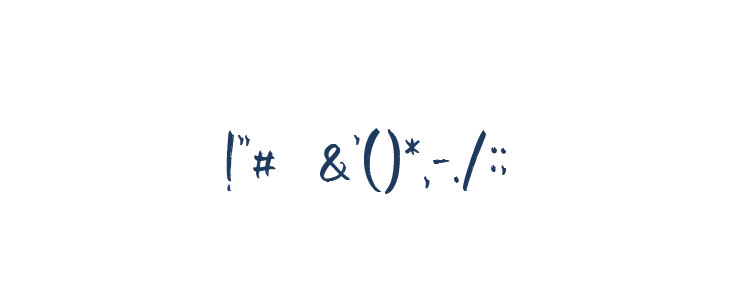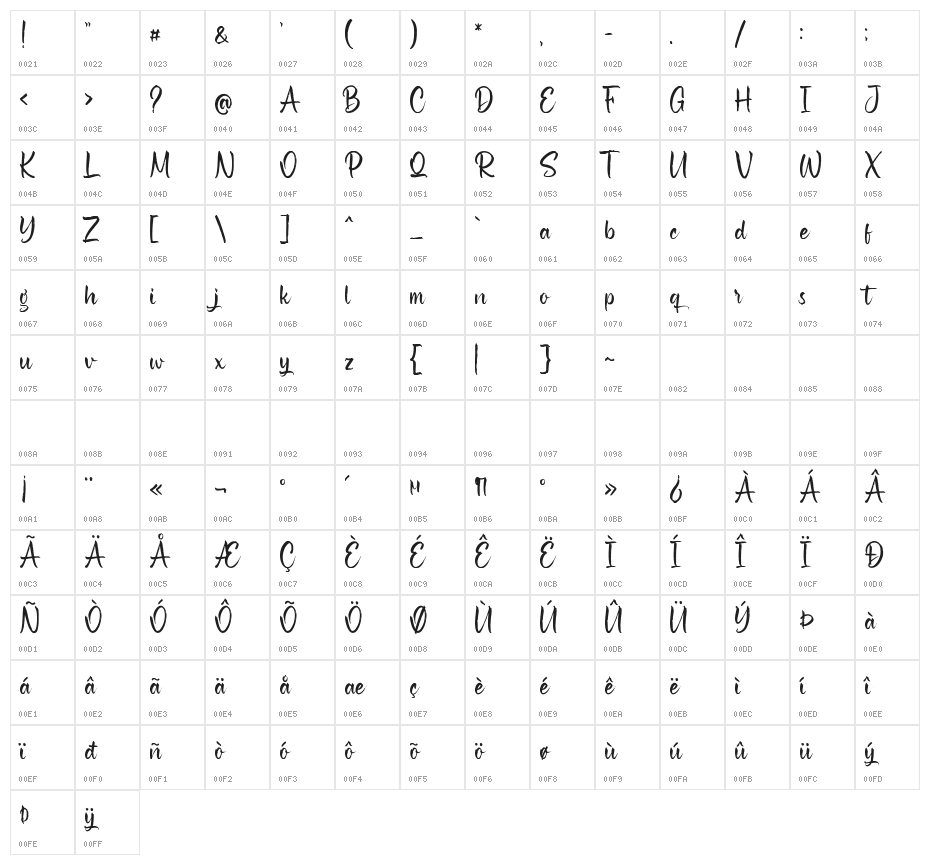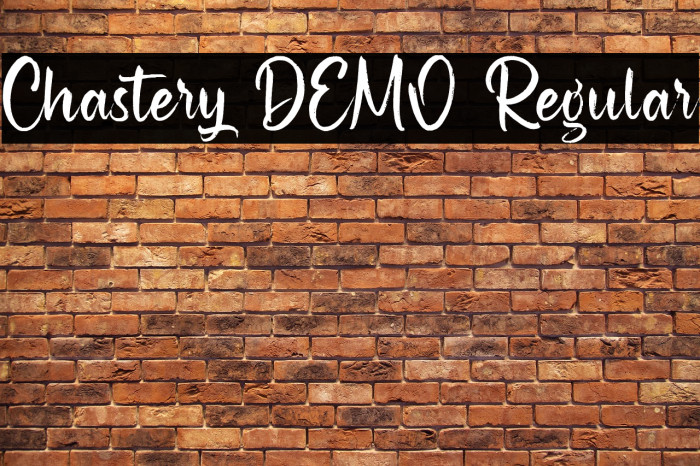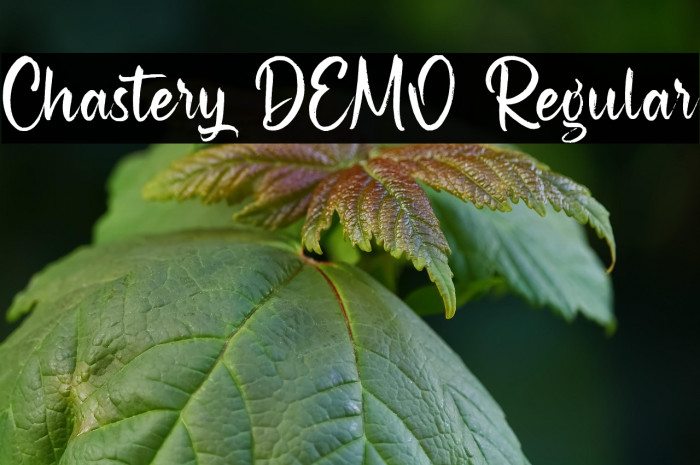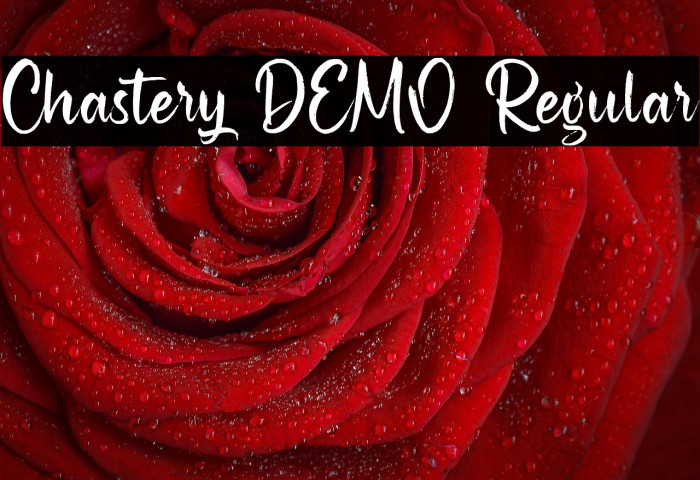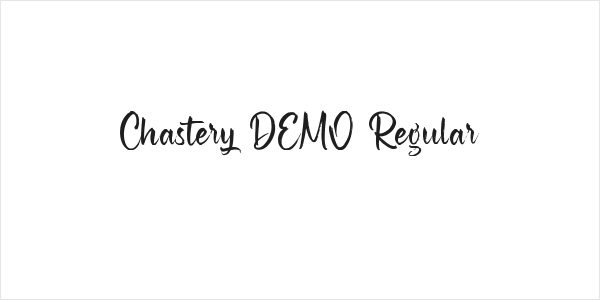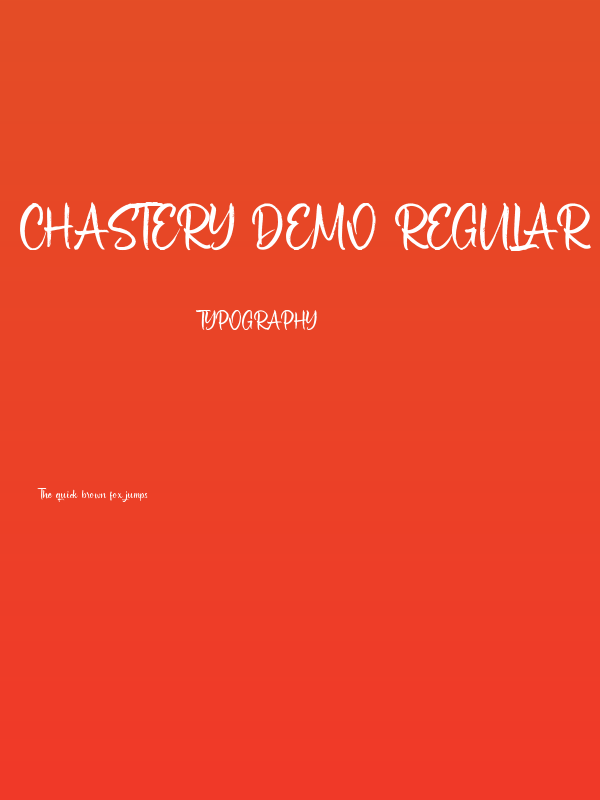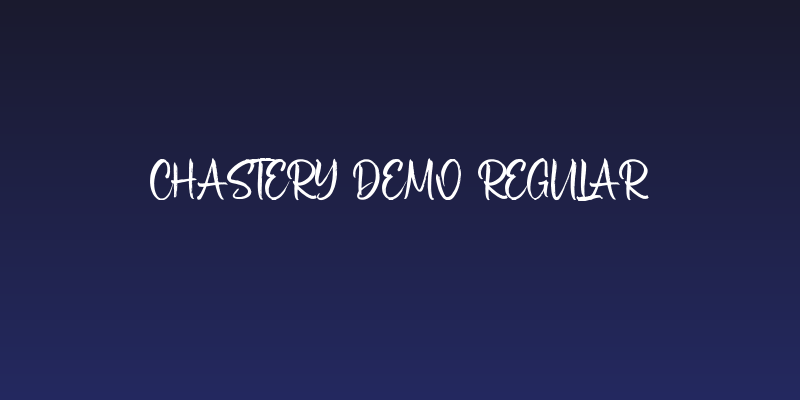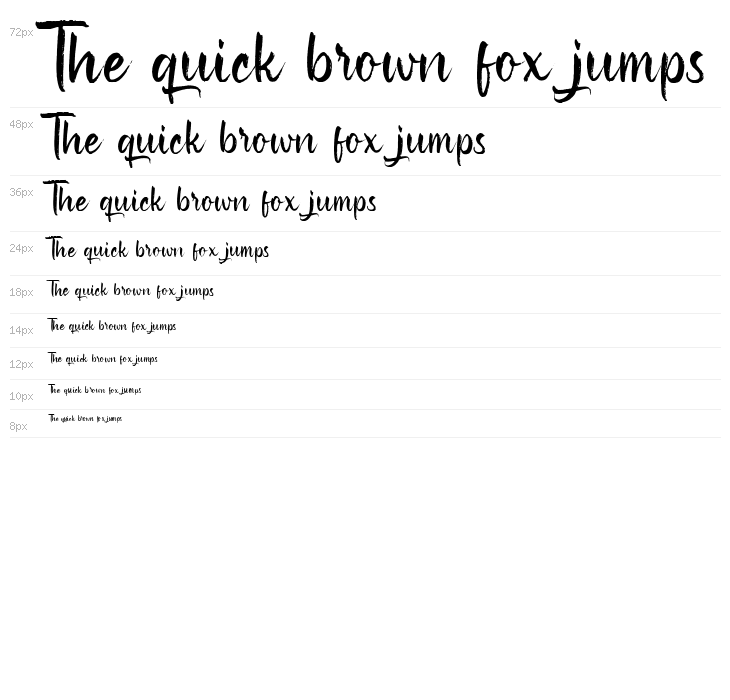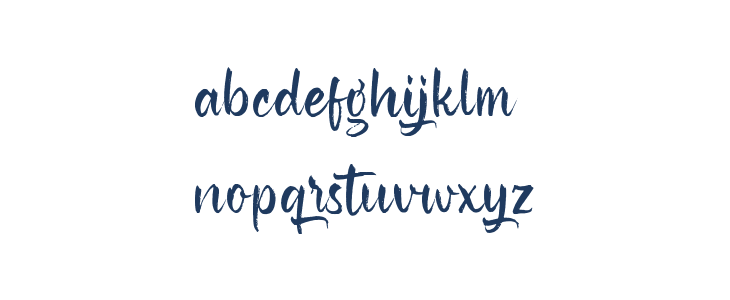
Chastery DEMO Regular Font
Chastery DEMO Regular Description
This font exhibits a bold and expressive handwritten style, characterized by its fluid and dynamic strokes. The uppercase letters are tall and slightly condensed, with a playful yet elegant flair. The lowercase letters maintain a consistent flow, enhancing the script-like appearance. The numerals and special characters complement the overall aesthetic, providing a cohesive look. The brush-like texture adds a personal touch, making it suitable for creative and artistic projects. Its distinct style captures attention while maintaining readability, making it versatile for various design applications.